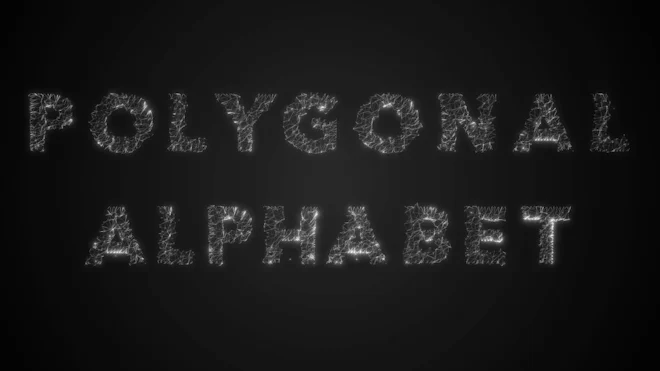
This stock motion graphics video pack includes 36 different clips of polygonal typefaces on a black background. The pack includes 26 letters and 10 numbers. It works through ADD/SCREEN layer mode.